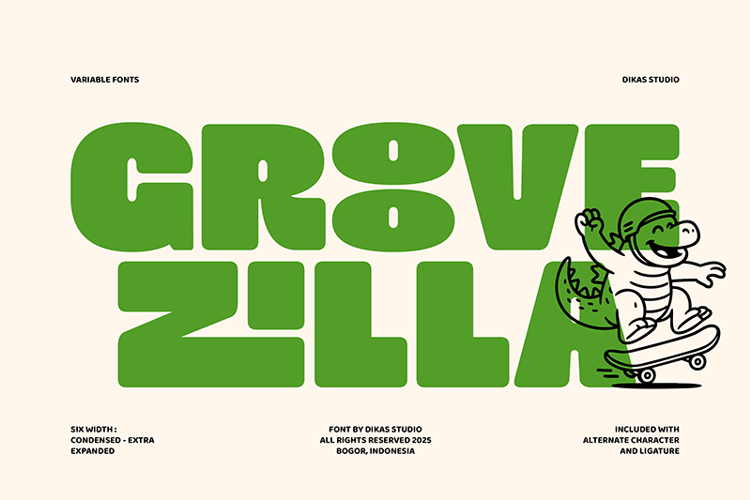
DKS Groovezilla Font
Groovezilla is a retro bold font packed with fun, flavor, and groovy flair. With its soft edges and cheerful personality, this typeface brings a playful, feel-good vibe to any design. Inspired by the funky spirit of vintage aesthetics, Groovezilla is a retro bold font that’s perfect for projects that want to stand out with confidence and style.